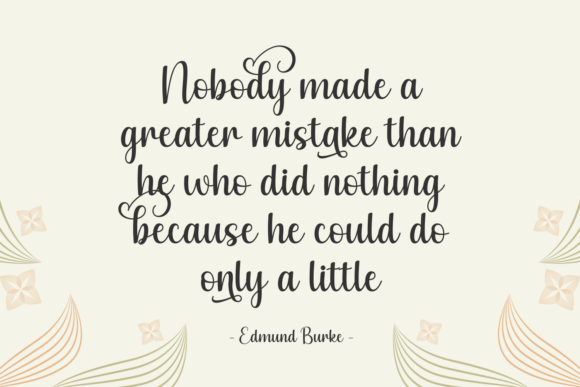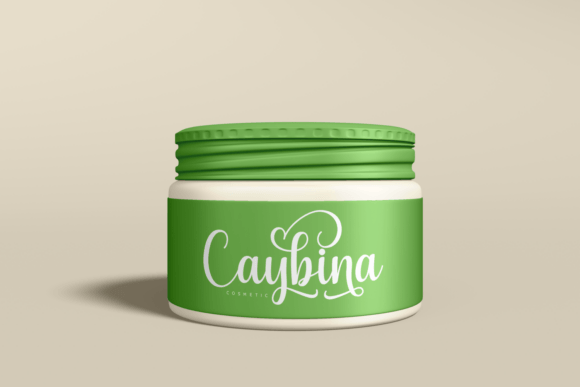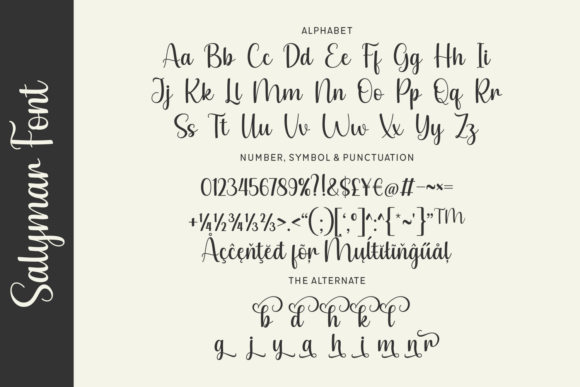
Introduction to Salymar Font
Do you remember that moment when you stumbled upon the perfect font for your design project, and it all came together in a beautiful way? For designers, finding that elusive perfect font can be a game-changer. For those in the know, Salymar Font is that elusive gem that adds a touch of luxury and warmth to any design.
Salymar Font is an elegant and versatile script font that features graceful curves and unique swashes. Its flowing style exudes charm and sophistication, making it ideal for wedding invitations, branding, logos, greeting cards, and creative projects. Whether you’re a seasoned designer or just starting out, Salymar Font is a valuable addition to your design resource library, offering a free download option that’s perfect for high-quality designs.
With its transparent background and high-quality design, Salymar Font is the perfect choice for designers looking to elevate their creative projects to the next level. In this article, we’ll dive deeper into the world of Salymar Font and explore its unique features, making it a must-have design resource for any creative professional.
Key Features of Salymar Font
- High-quality, unique design suitable for creative projects requiring a modern aesthetic.
- Includes a transparent background, allowing for seamless integration into various design elements.
- Features a high-resolution design, ideal for use in large-scale projects or high-resolution printing.
- Comes in a single weight, providing a clean and minimalist look suitable for various design applications.
Honest Review: Salymar Font
As a designer, I’m always on the lookout for high-quality design resources to elevate my creative projects. The Salymar Font caught my eye, and I was excited to give it a try.
- ✨ High-quality design: The Salymar Font has a crisp and clean look that’s sure to impress.
- ✨ Transparent background: This makes it easy to customize and use in various design contexts.
- ✨ Versatile: Suitable for a wide range of creative projects, from print to digital.
However, there are some limitations to consider. ⚠️ The font may not be suitable for projects that require a lot of bold or italic text, as it can become difficult to read in those contexts.
Overall, I’m impressed with the Salymar Font, and I think it’s a great addition to any designer’s toolkit. While it may have some limitations, its high-quality design and versatility make it a valuable resource for creative projects.
How to Use Salymar Font
Design Resource Tips
To get the most out of Salymar Font, use it with a high-quality image or design element. This will ensure a professional-looking result. Additionally, consider using a transparent background to create a clean and minimalist design.
Salymar Font is ideal for creative projects such as logos, branding materials, and marketing materials. Its high-quality design and transparent background make it perfect for use in a variety of design contexts.
Best Practices
When using Salymar Font, keep in mind that it is a high-quality font and should be used accordingly. Use it sparingly and in moderation to avoid overwhelming the design. Also, make sure to pair it with complementary design elements to create a cohesive look.